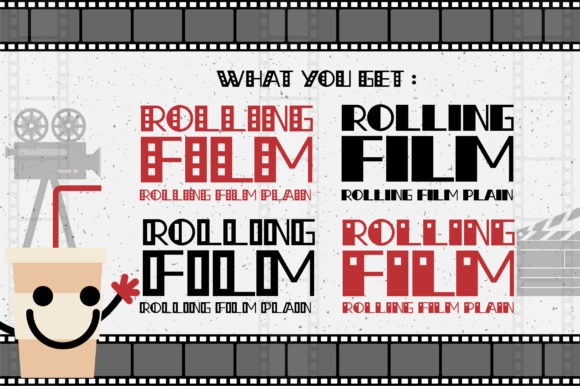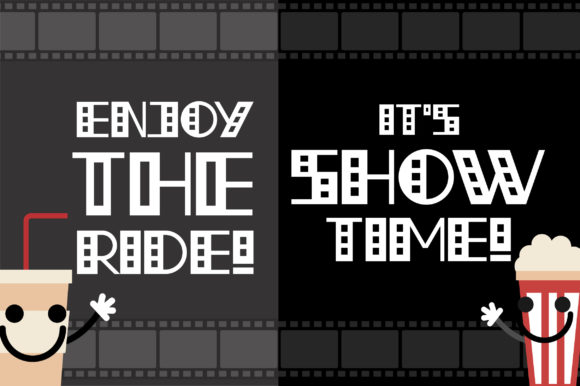
Introduction to Rolling Film Font
Rolling Film is a great and original display font.
It comes in four different styles and itโs the perfect font for any moviesโ crafting project .
Key Features of Rolling Film Font
Why Choose Rolling Film Font?